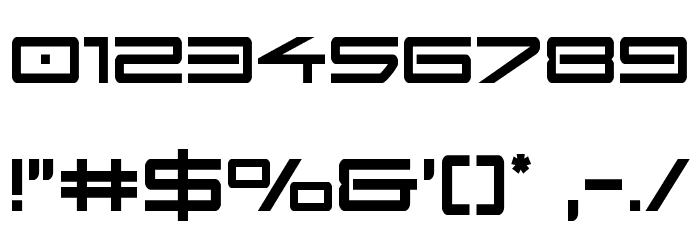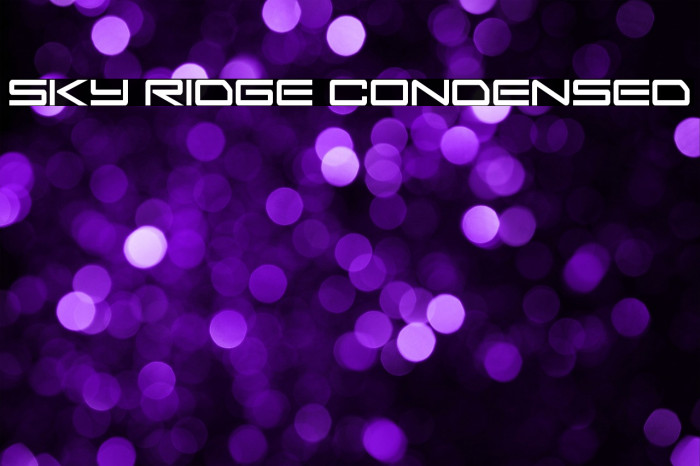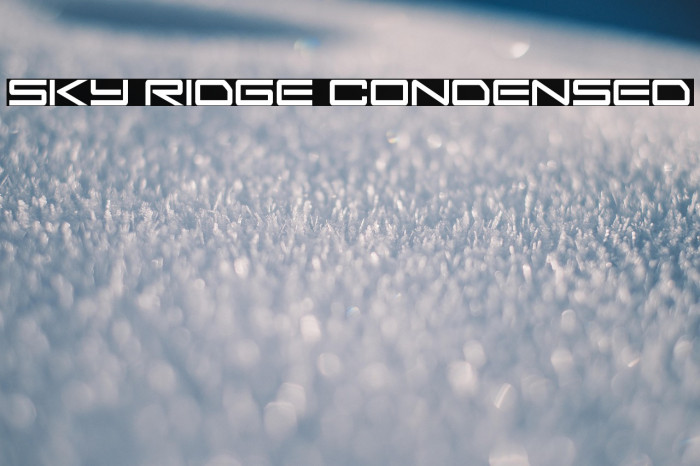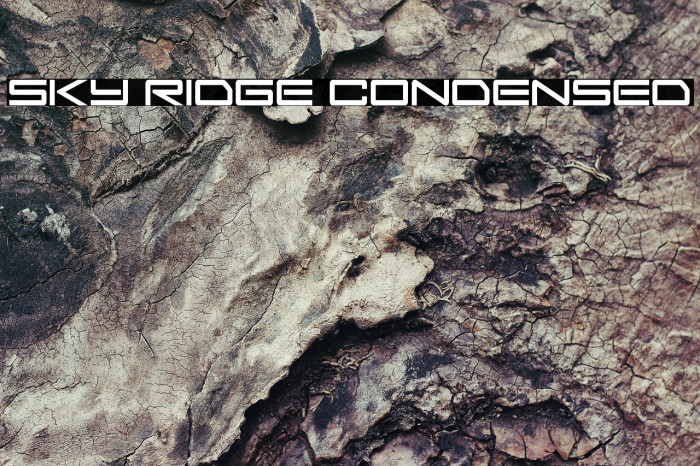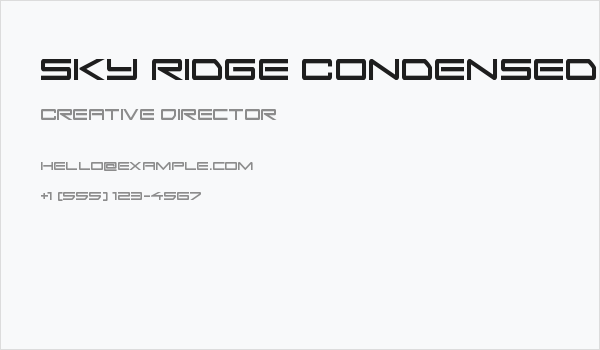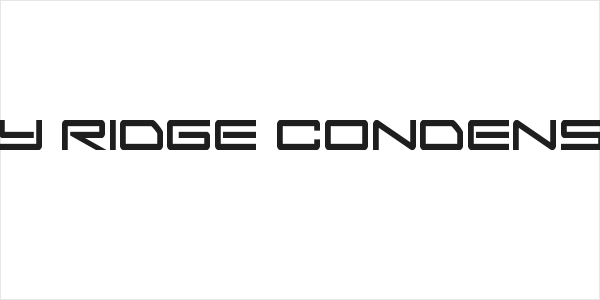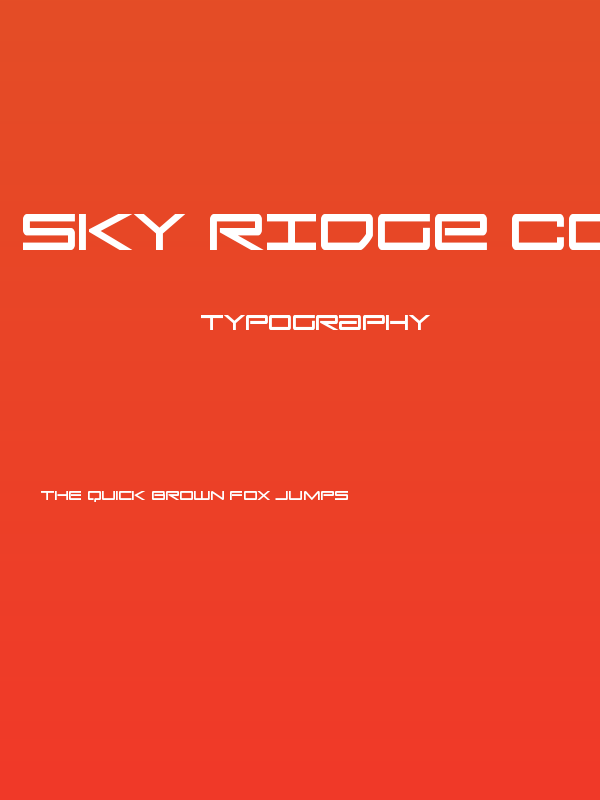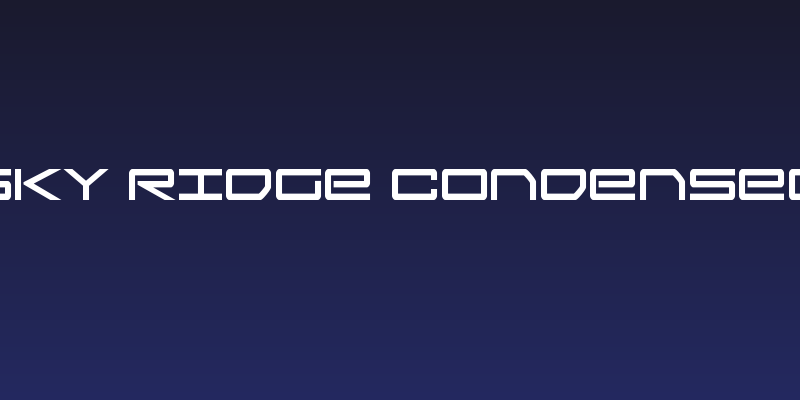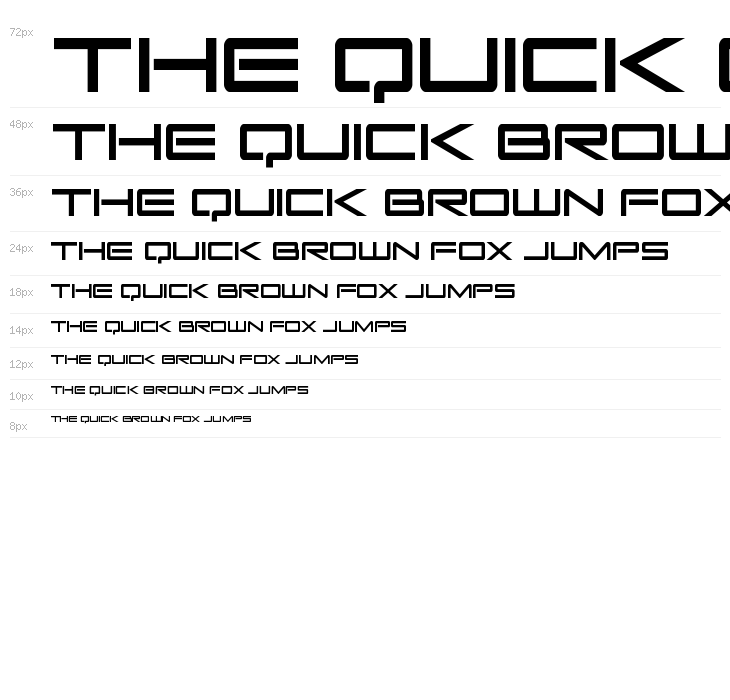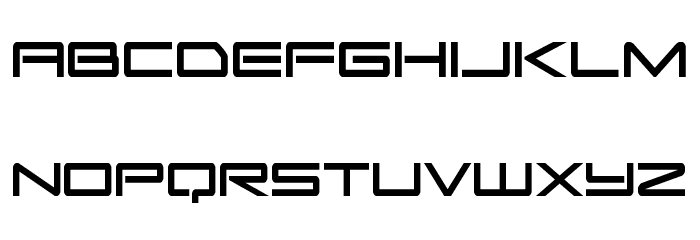
Sky Ridge Condensed Font
Sky Ridge Condensed Description
This font features a futuristic and geometric design with a condensed structure. The characters are composed of straight lines and sharp angles, giving it a modern and tech-inspired appearance. The uppercase and lowercase letters maintain a consistent style, with a uniform height and width that enhances readability. The numerals and special characters follow the same design principles, ensuring a cohesive look across all elements. The font's clean lines and minimalistic approach make it suitable for projects that require a contemporary and sleek aesthetic.
| Proposed Projects | Ideal for technology branding, sci-fi movie posters, video game interfaces, and modern web design. |